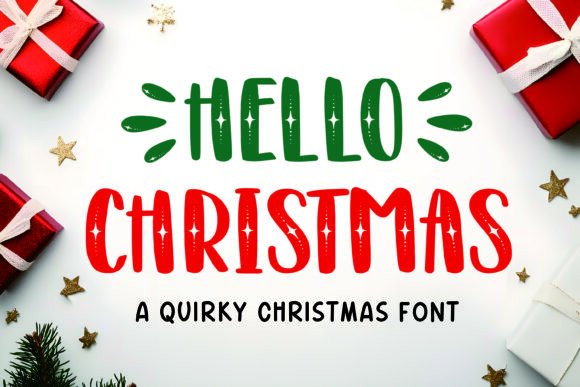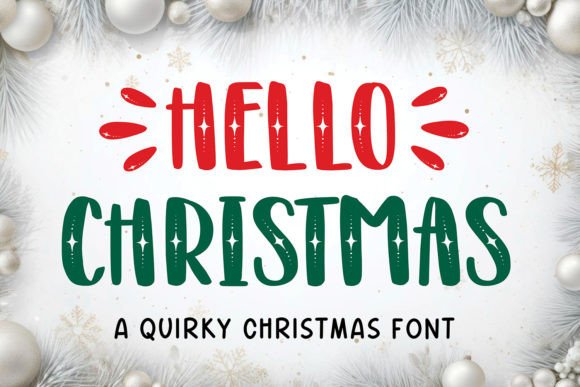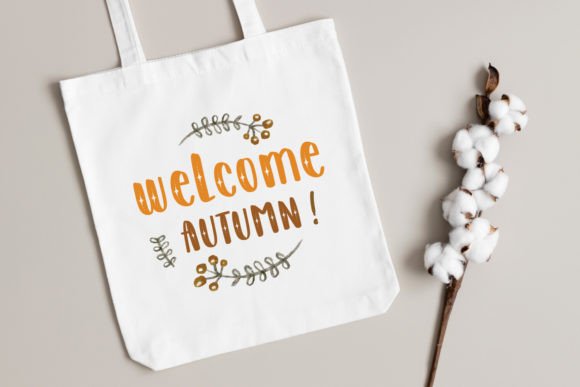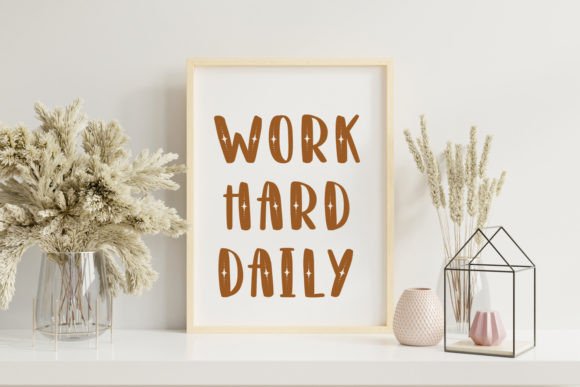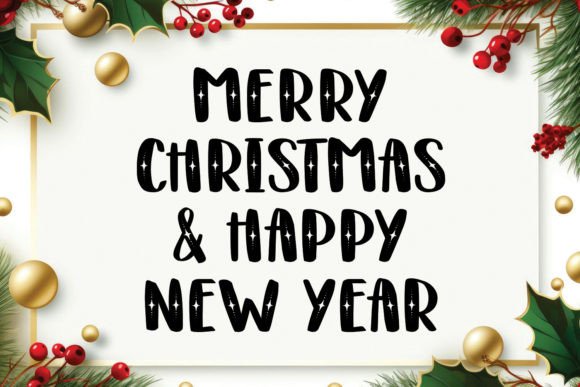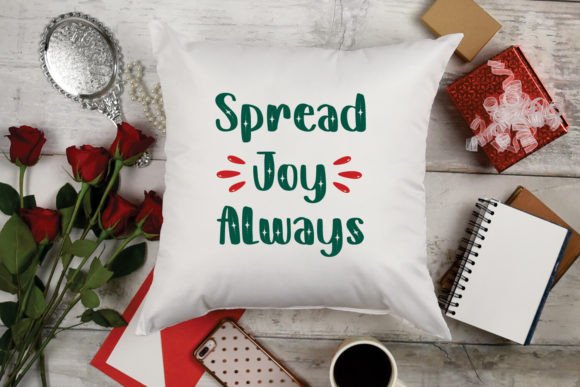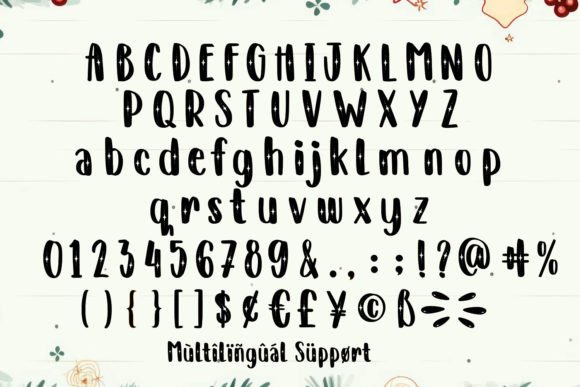
Hello Christmas Font
Hello Christmas is a whimsical and enchanting font that captures the spirit of the holiday season in a cute and playful display. Designed to infuse your projects with a joyful Christmas cheer, this font is a delightful mix of winter wonderland and crafting creativity.